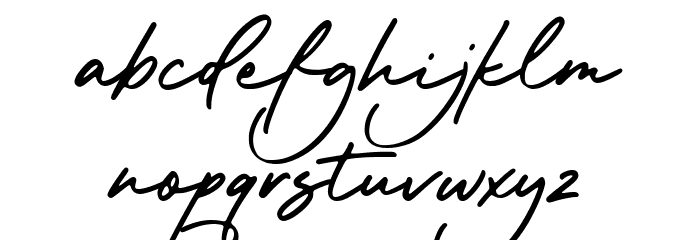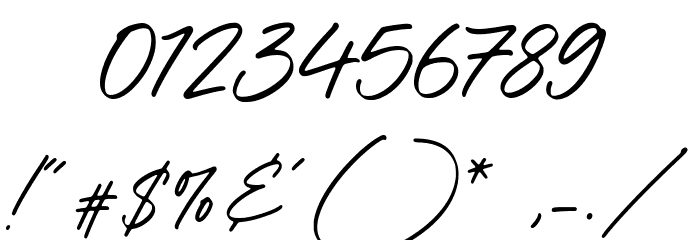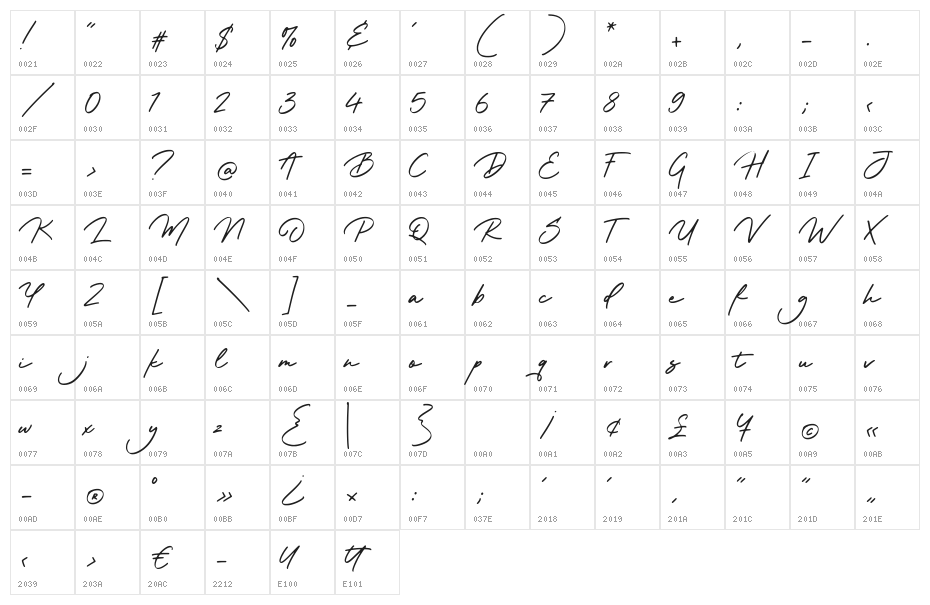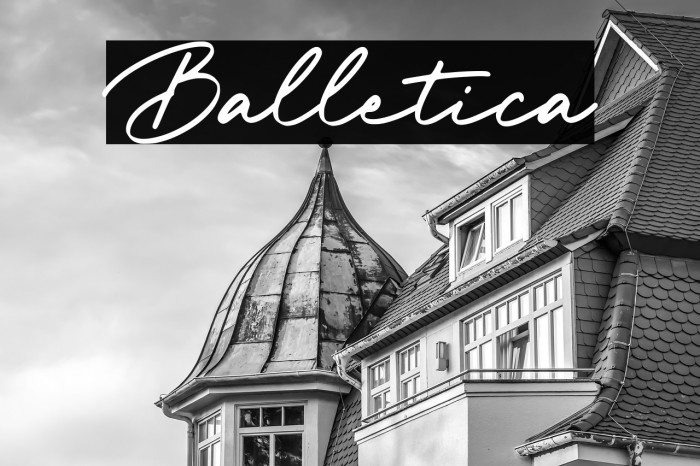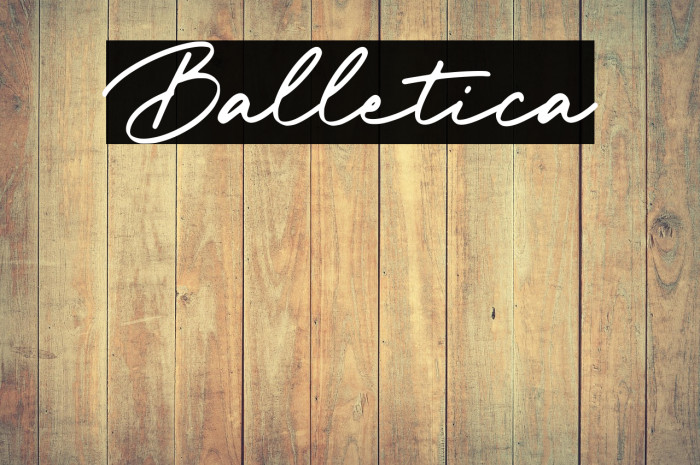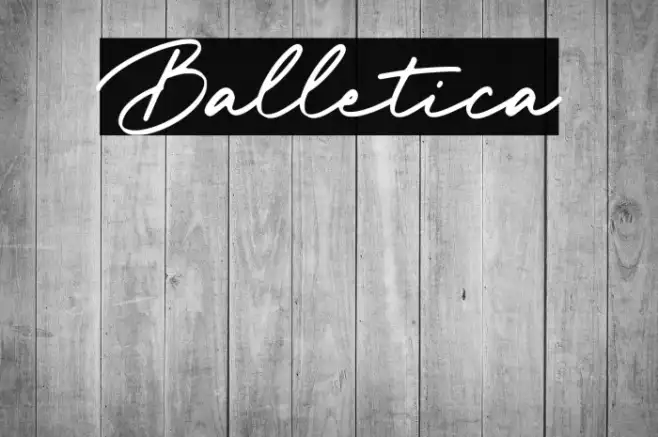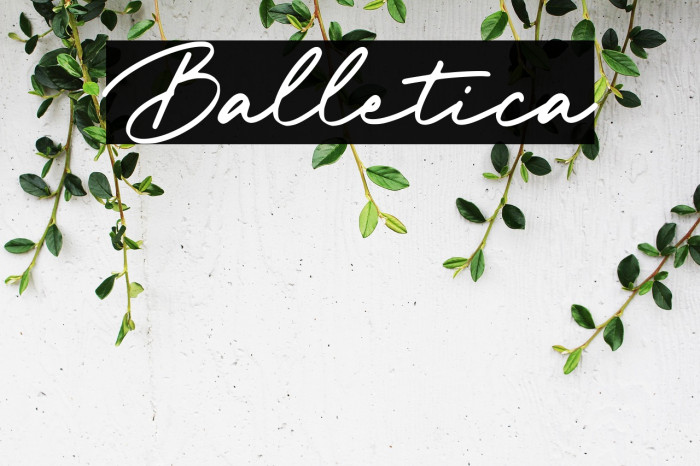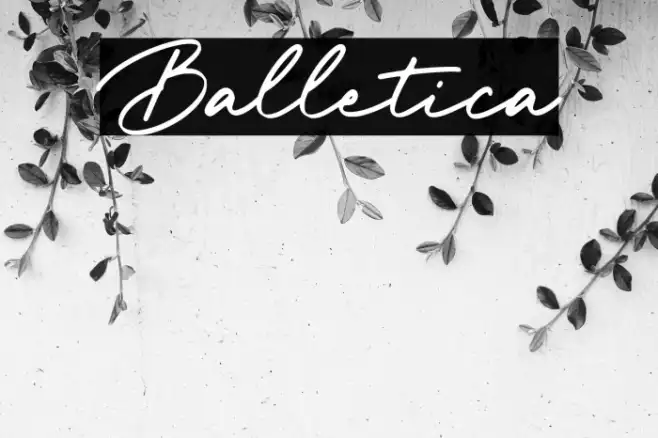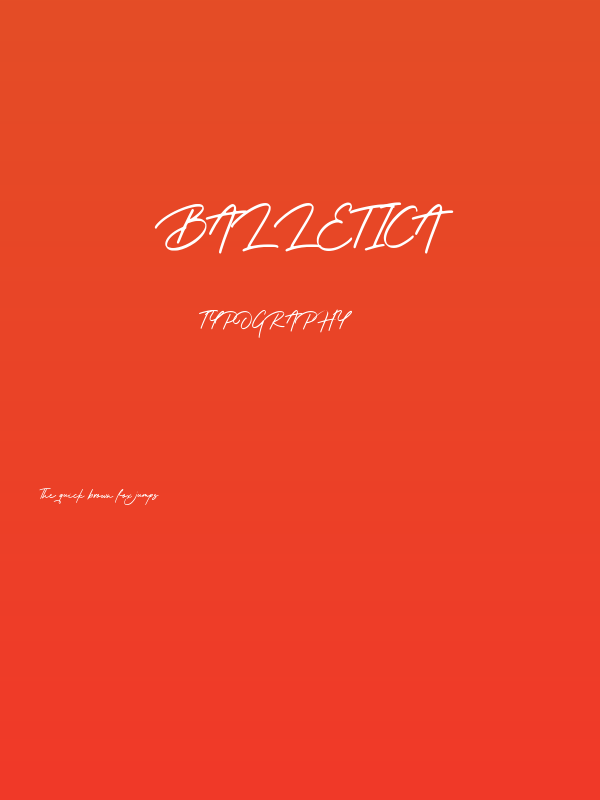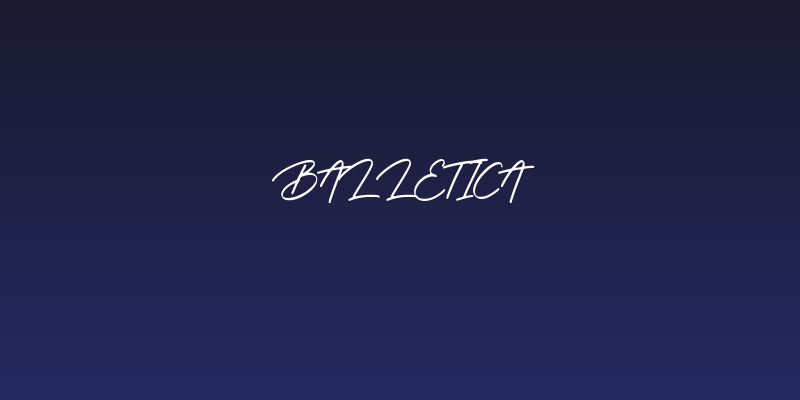
Balletica Font
This elegant script font exudes a sense of fluidity and grace, reminiscent of classic calligraphy. The characters are connected with smooth, flowing strokes, creating a harmonious and continuous line throughout the text. The uppercase letters are slightly more formal, with a refined touch, while the lowercase letters maintain a consistent rhythm and balance. The numerals and special characters are crafted with the same attention to detail, ensuring a cohesive look across all elements. This font's delicate curves and sophisticated style make it ideal for projects that require a touch of elegance and refinement.
An elegant script font with flowing, connected strokes and a classic calligraphic style.
- Font: Balletica
- Proposed Projects: Wedding invitations, elegant branding, personal stationery, luxury product packaging, and artistic posters.
- Category: Script
- Character Spacing: Tight
- Overall Style: Classic
- Use Case: Logos, Invitations, Decorative text